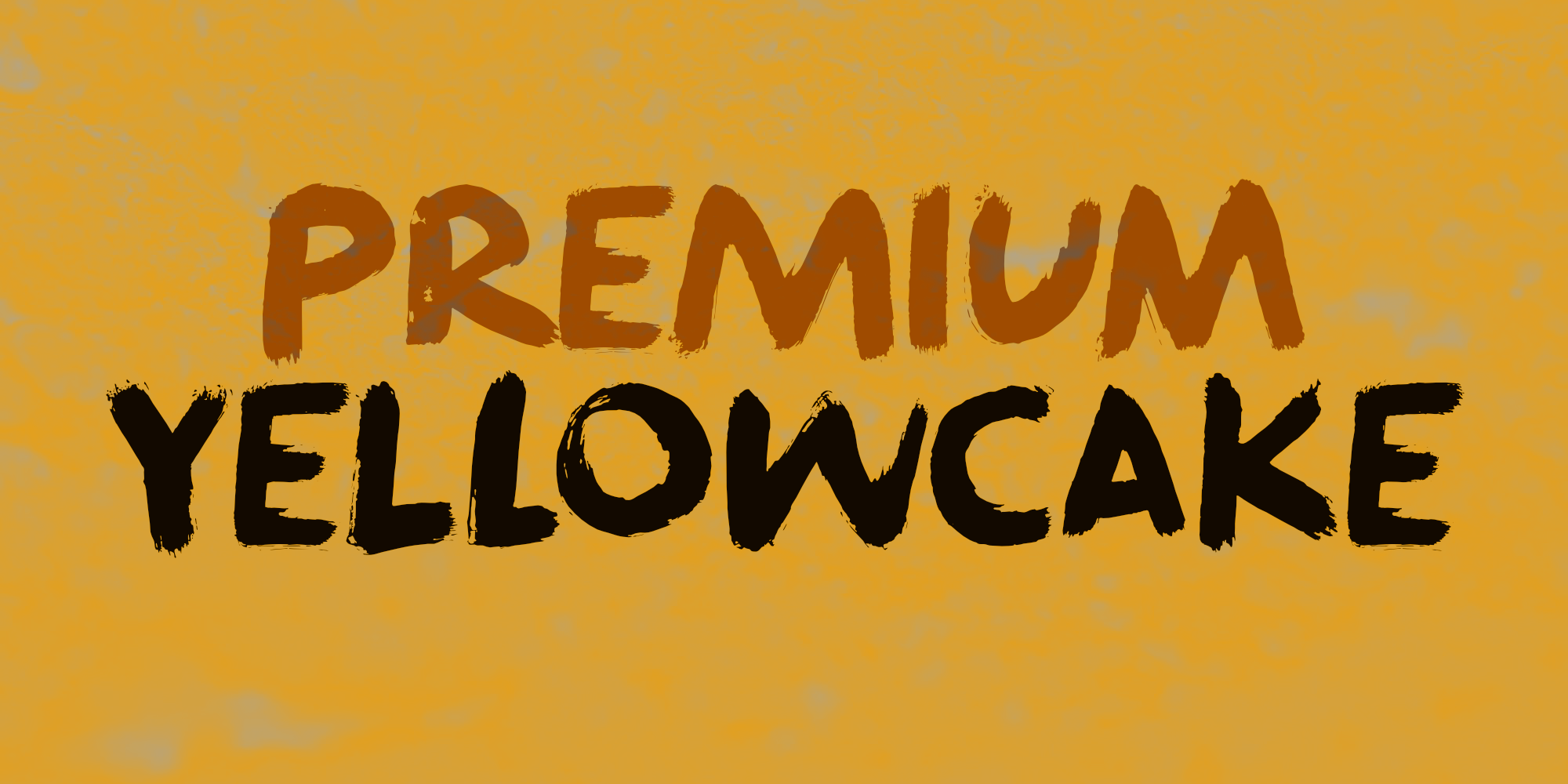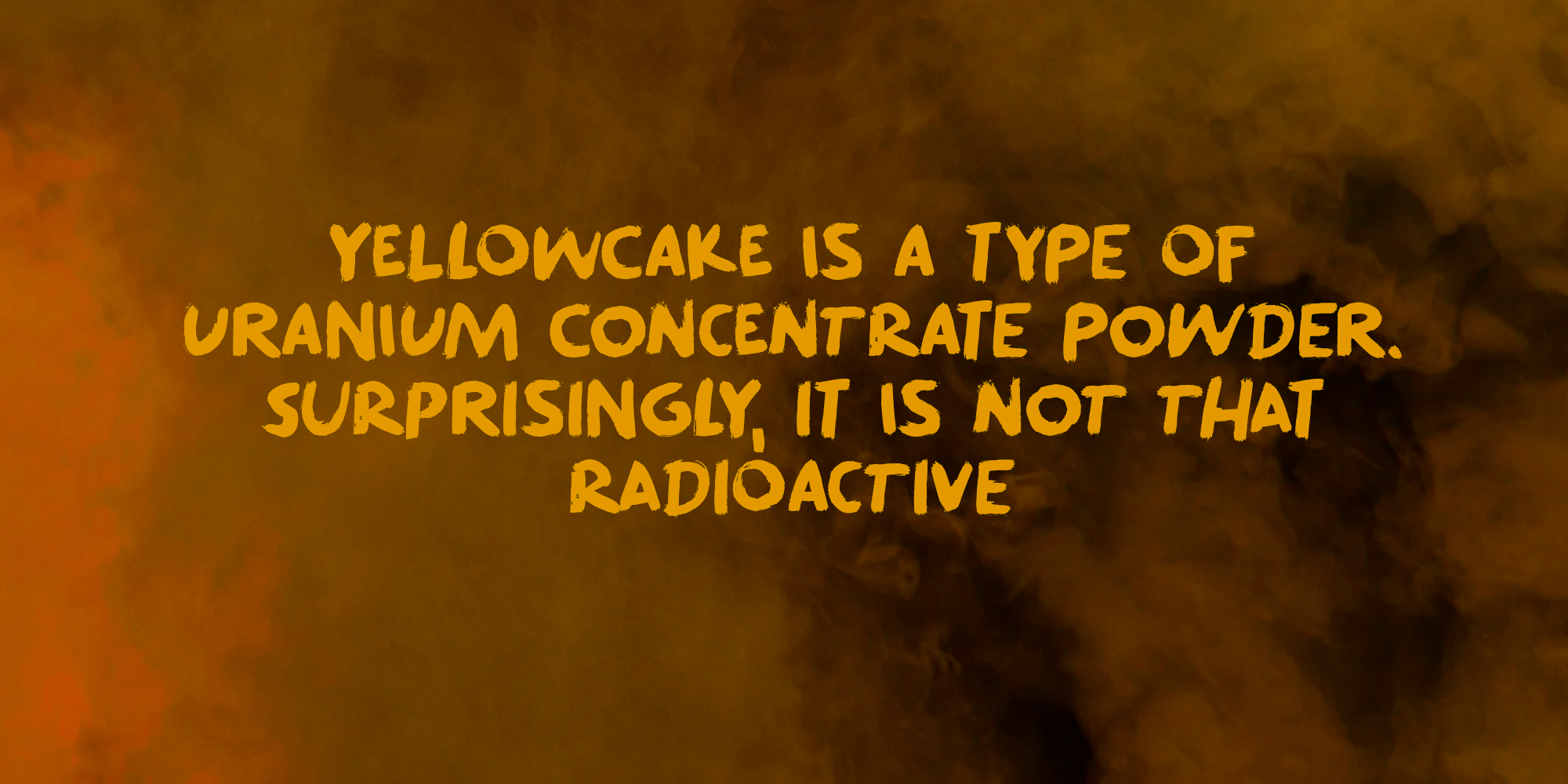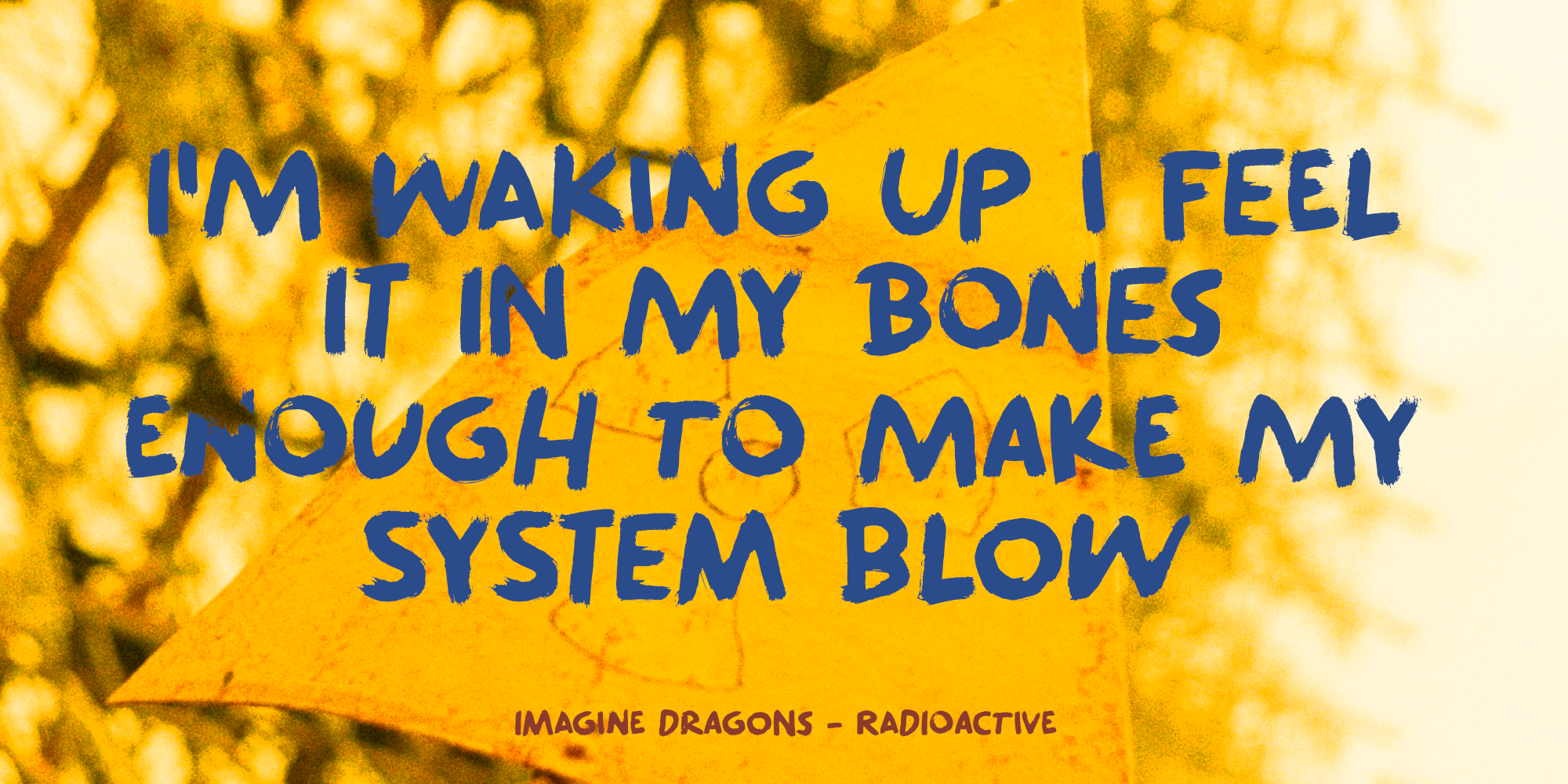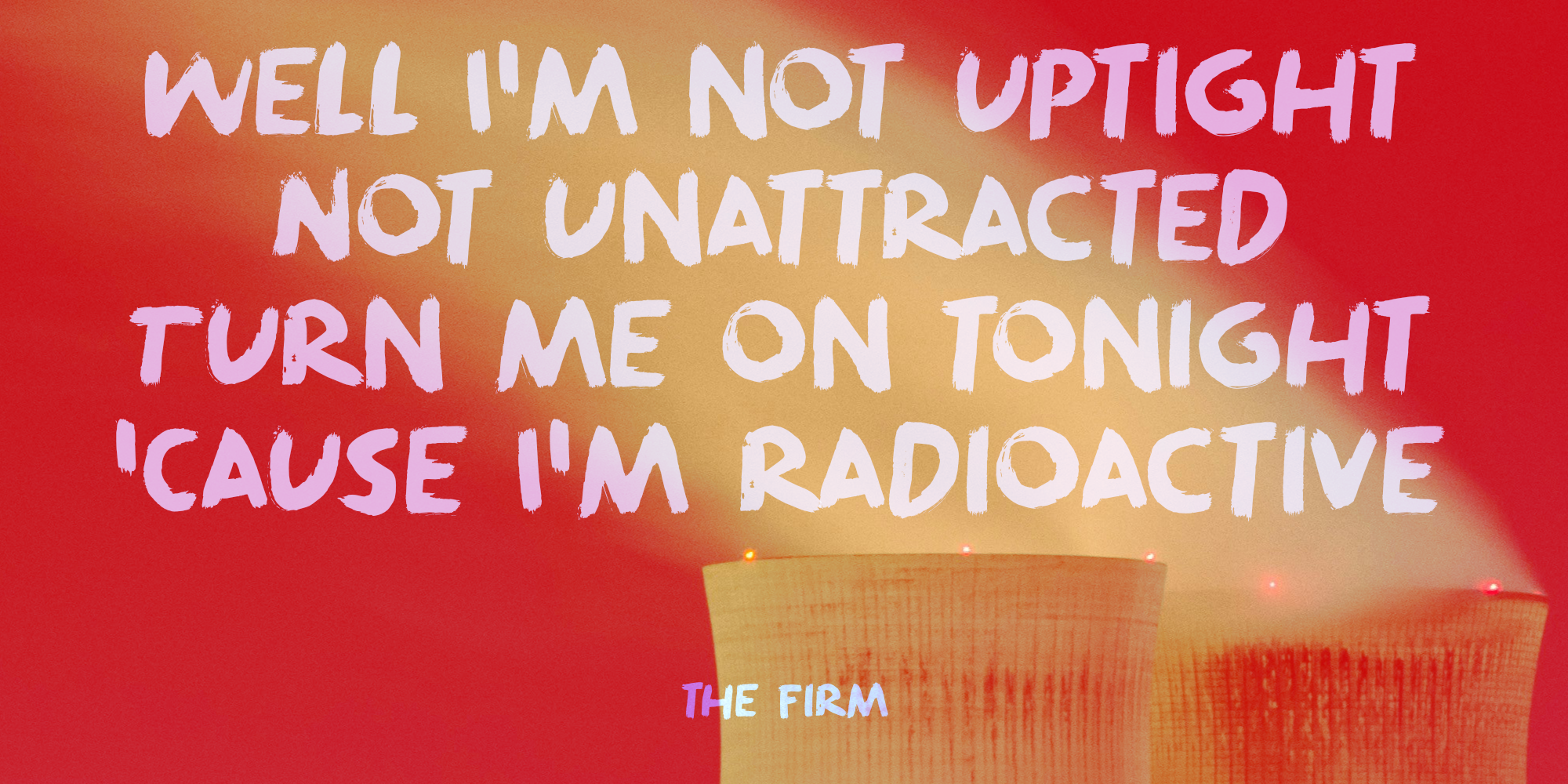
Premium Yellowcake (2 fonts)
Premium Yellowcake is a font I made with a brush and Chinese ink. It is a bit rough, but it will look great on packaging and book covers, so have a ball.